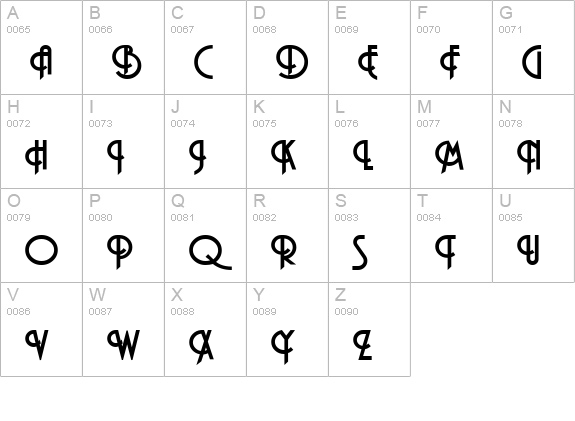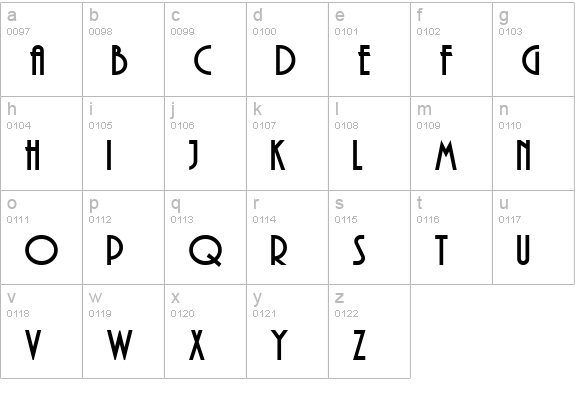
Haman Bold Font Details
Haman Bold is a strong, high-contrast variant in the Haman typeface family \xE2\x80\x94 well suited to headlines, attention-grabbing titles, and strong calls-to-action.
Introducing Haman Bold, a versatile and eye-catching font that will add a touch of sophistication to any design project. With its bold and confident strokes, this font is perfect for making a statement and grabbing attention. Haman Bold is ideal for headlines, titles, logos, and branding materials. Its strong and commanding presence will make your designs stand out from the crowd. The unique combination of sharp edges and smooth curves gives this font a modern and elegant aesthetic. But the best part? Haman Bold is available for free! That's right, you can freely download this amazing font at FontsMarket.com. Whether you're a professional designer or just starting out, you can enjoy the benefits of this high-quality font without breaking the bank. So why wait? Enhance your designs with Haman Bold and impress your audience with its bold and captivating style. Download it today and experience the power of this incredible font, all for free at FontsMarket.com.